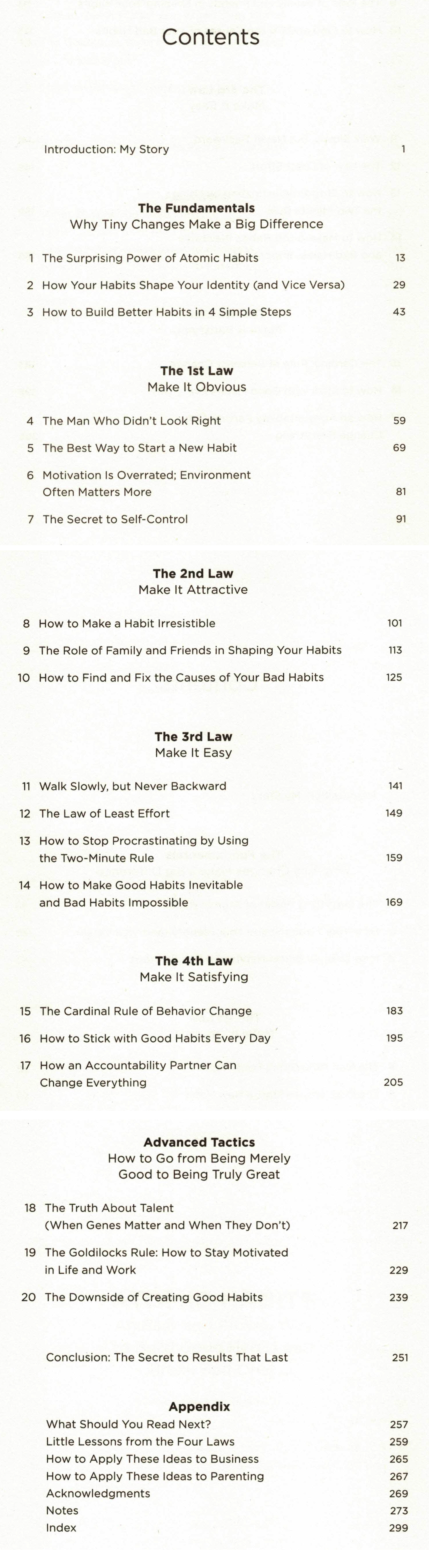
Font for the contents/headings/header text of "Atomic Habits" by James Clear?
I'd like to ask if anyone recognises the font used for the contents/headings/header text of "Atomic Habits" by James Clear, Australian version, ISBN: 978-1-84-794183-1, published by Penguin Random House UK.
It's a very simple and clean sans-serif font that presents elegantly. You can also see a high-resolution original scan here.
I've attached a scan below.